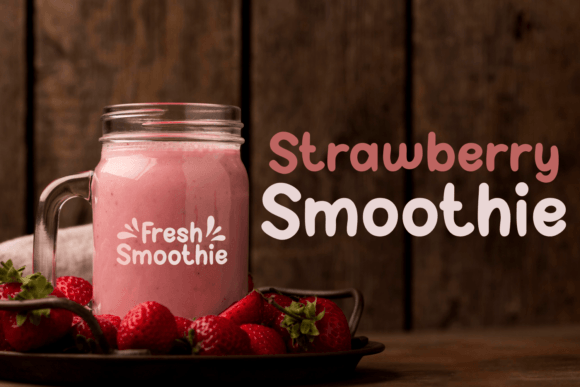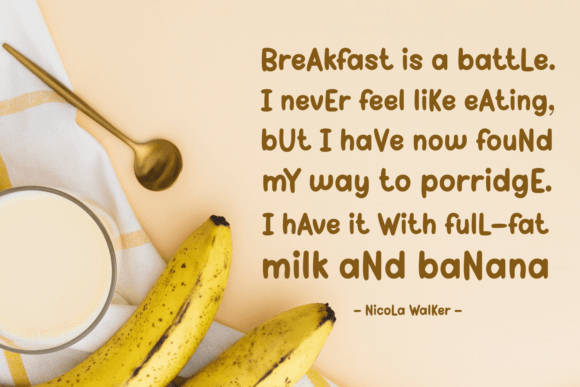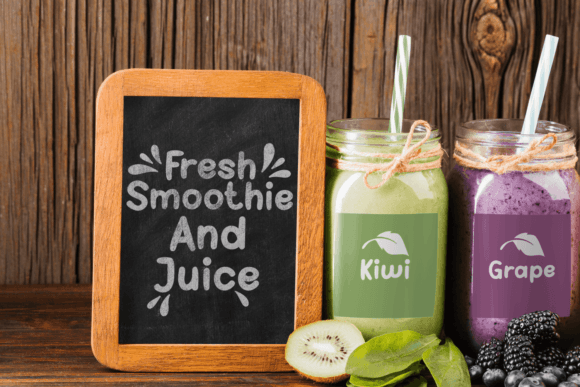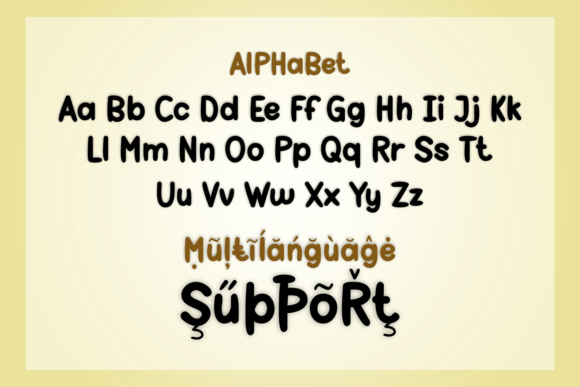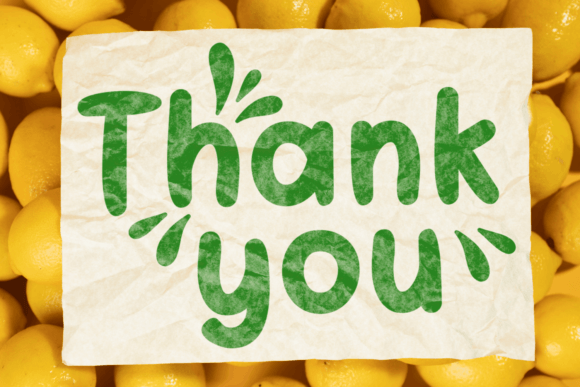
Introduction to Fresh Smoothie Font
Fresh Smoothie is a fresh and bright display font.
Natural and playful, this font fits a wide pool of designs, elevating them to the highest levels Add this font to your favorite creative ideas and notice how it makes them come alive.
Key Features of Fresh Smoothie Font